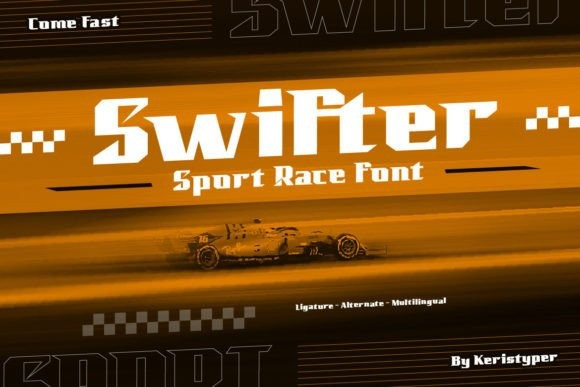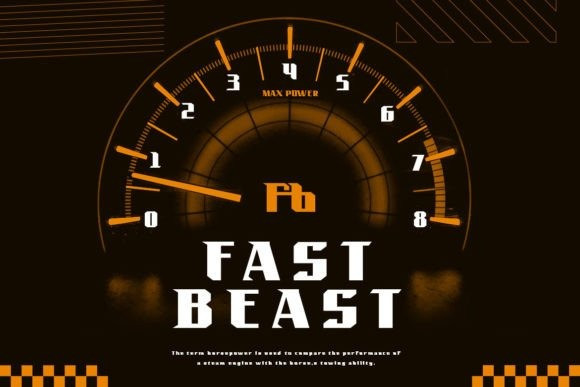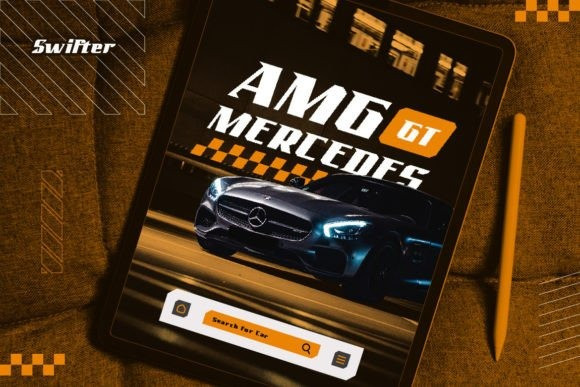
Swifter Font
Introducing Swifter a racing display with strong sports nuances. This font is good for logo design, Social media, Movie Titles, Books Titles, short text even long text letters, and good for your secondary text font with sans or serif.
* Standard Uppercase & Lowercase
* Numeral & Punctuation
* Multilingual : ä ö ü Ä Ö Ü ß ¿ ¡
* Alternate & Ligature